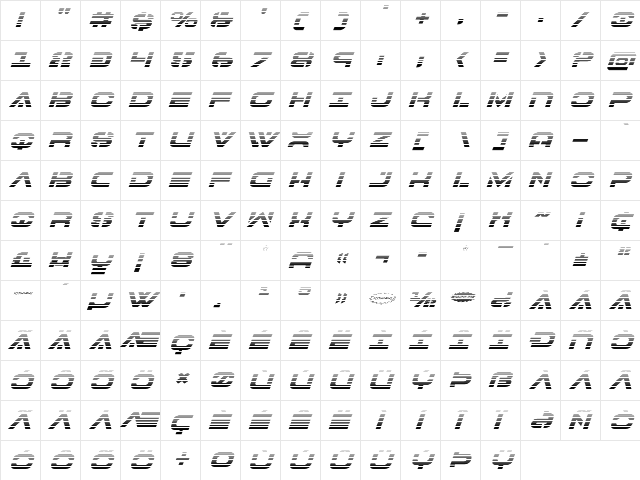
7th Service Gradient Italic Italic
Design Context for 7th Service Gradient Italic Typeface
7th Service Gradient Italic offers clean, dependable letterforms without strong stylistic allegiance, making it a practical choice for designers who need flexibility. Its italic angle brings a sense of urgency and motion to the letterforms.